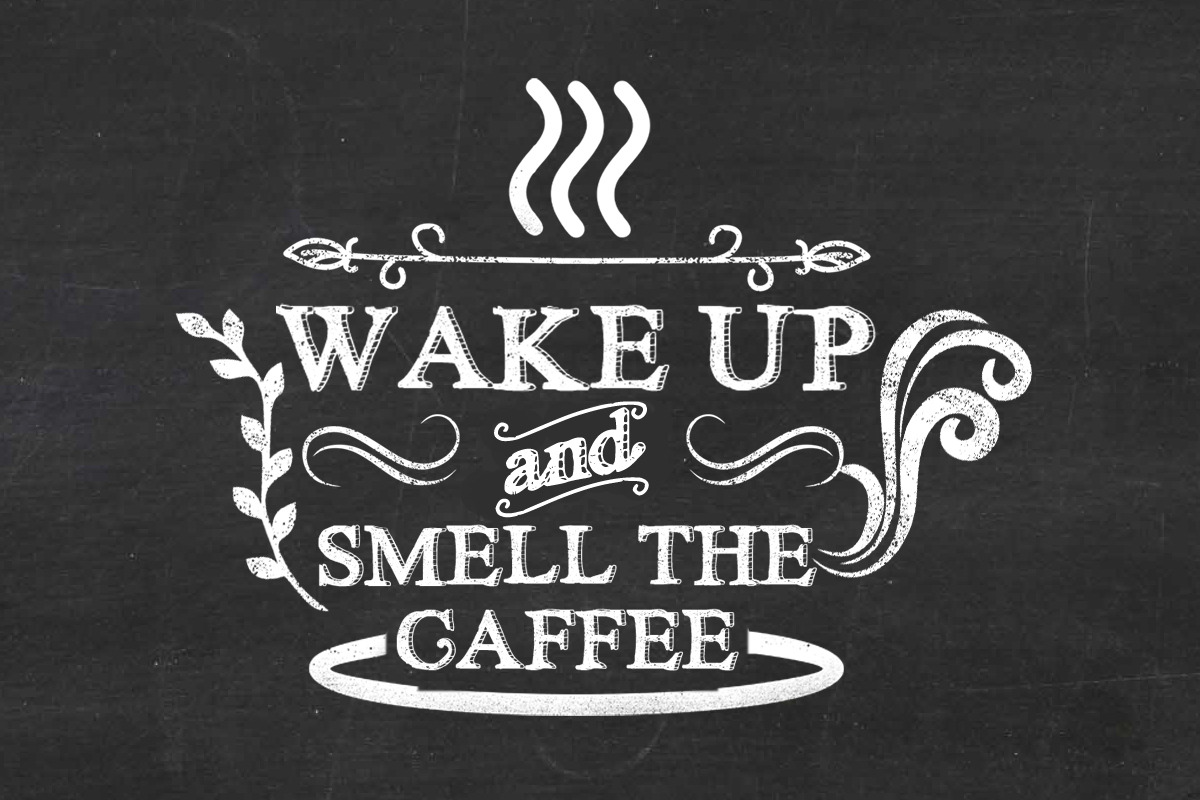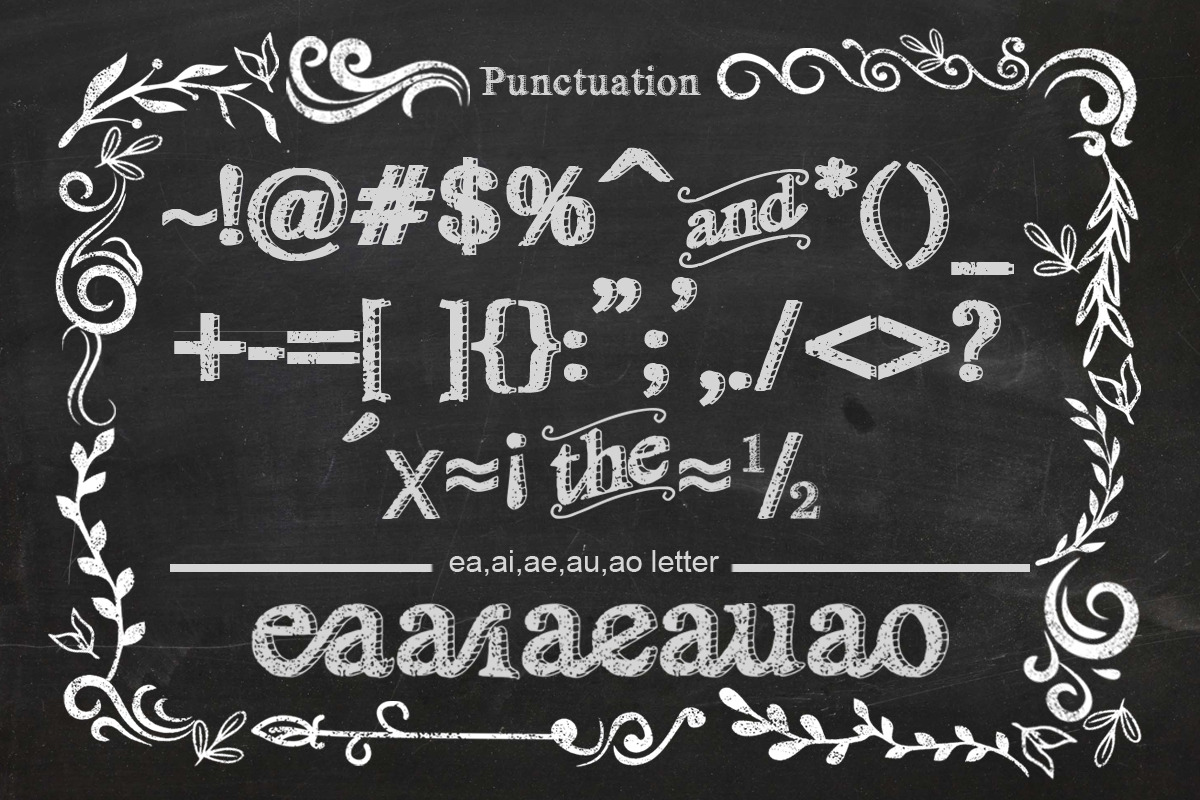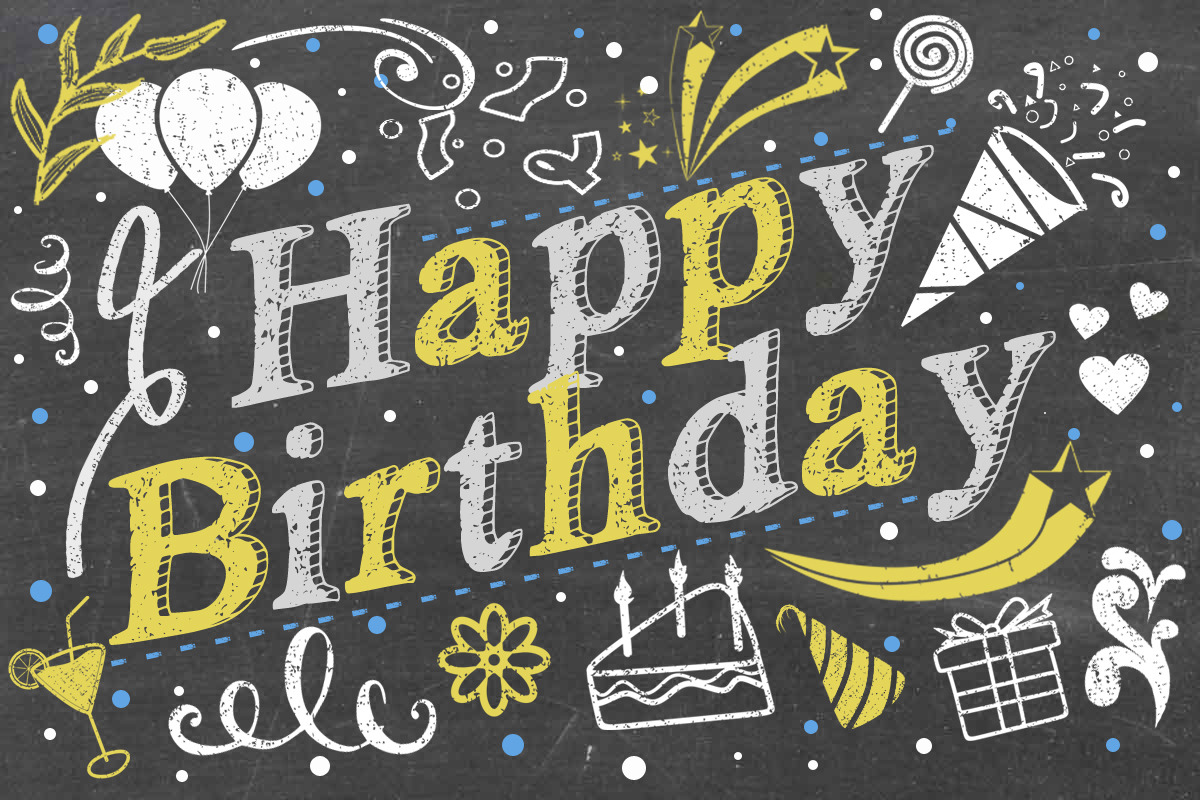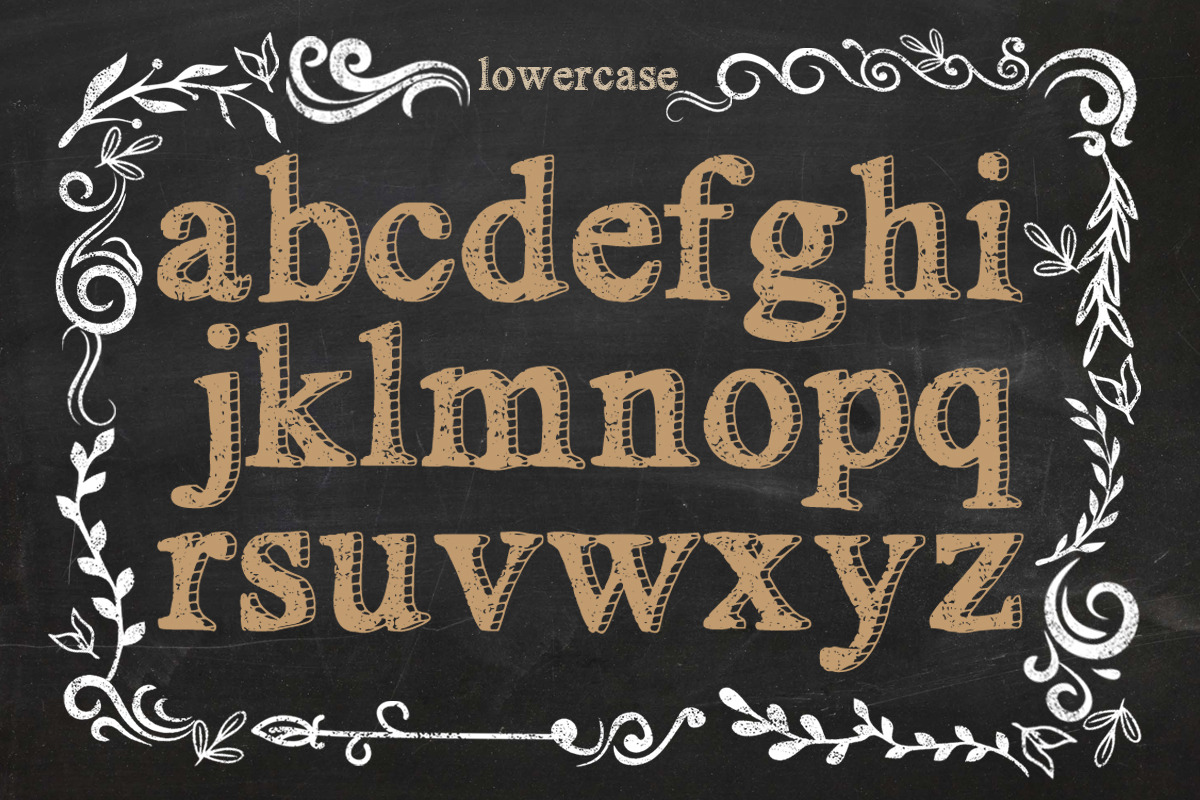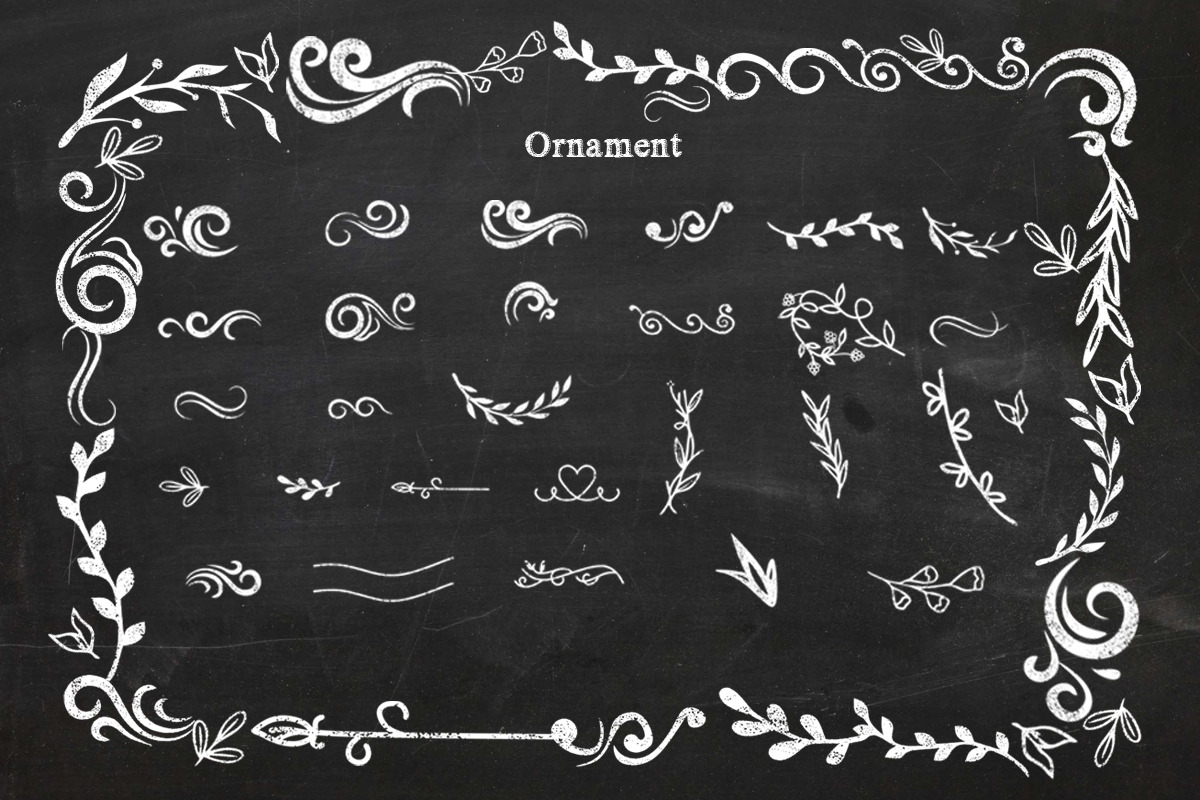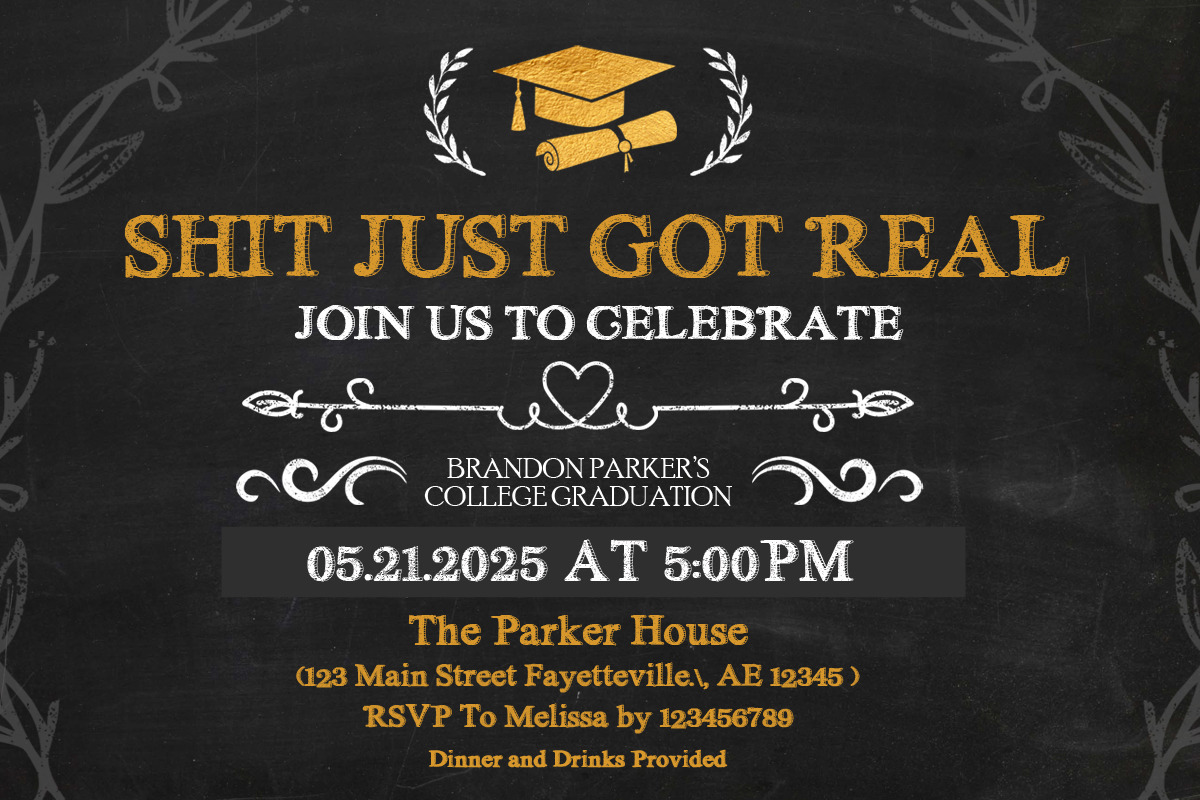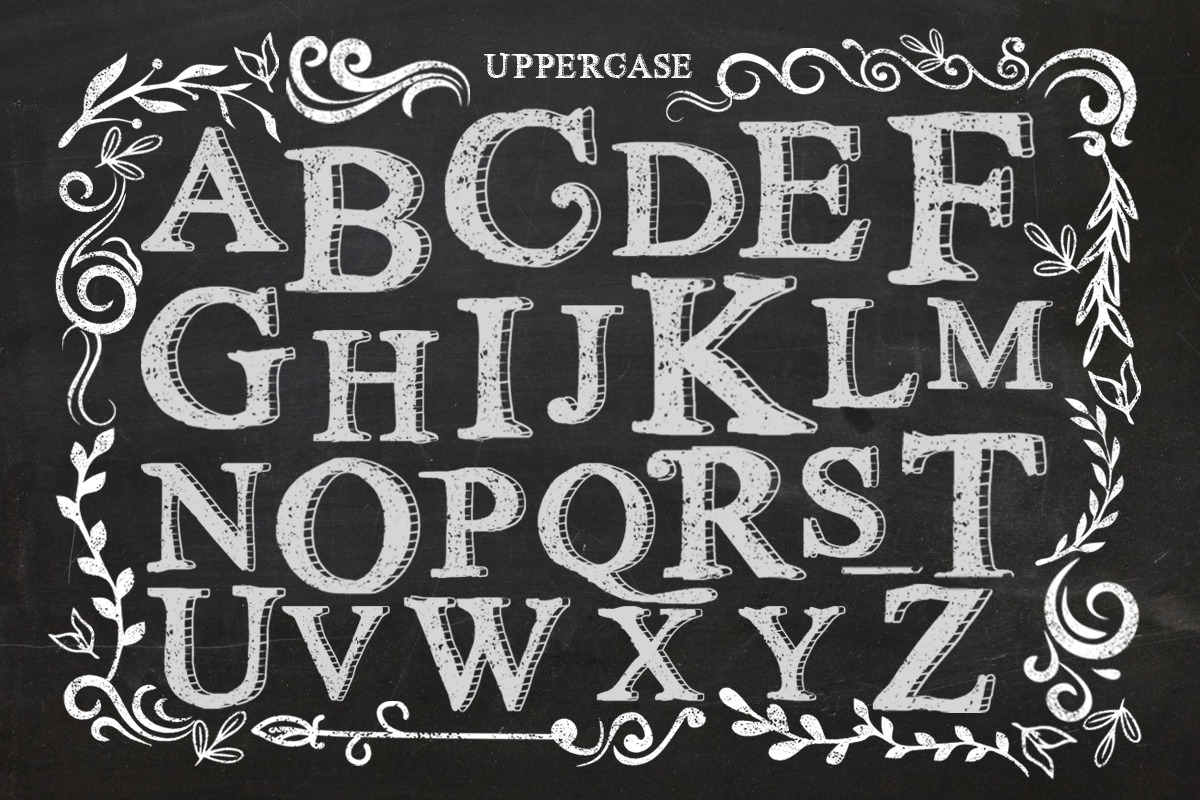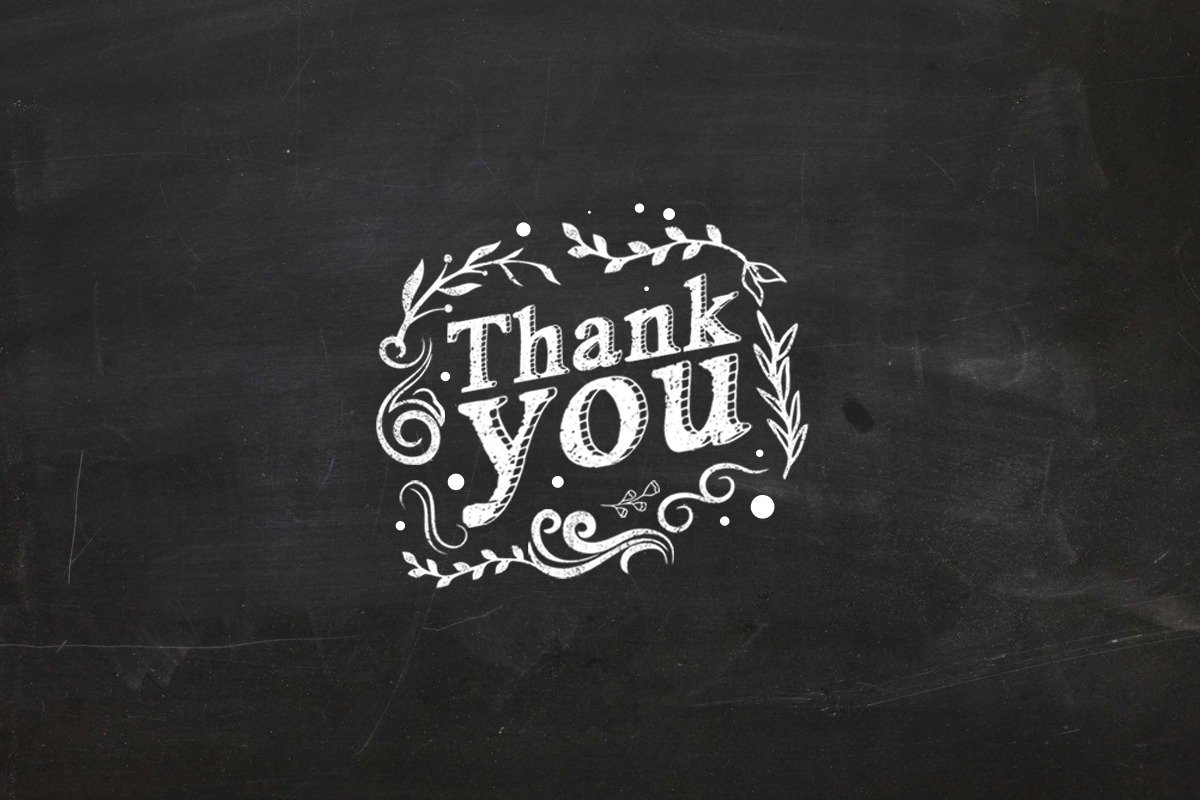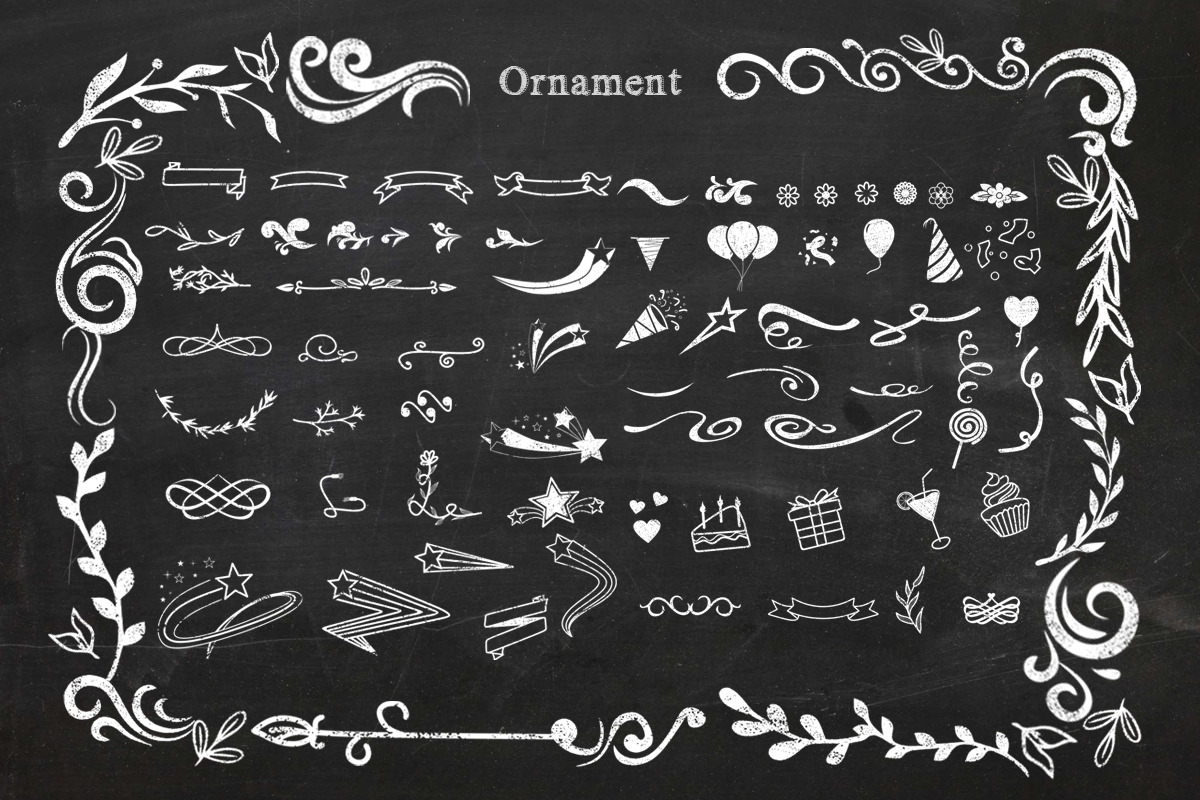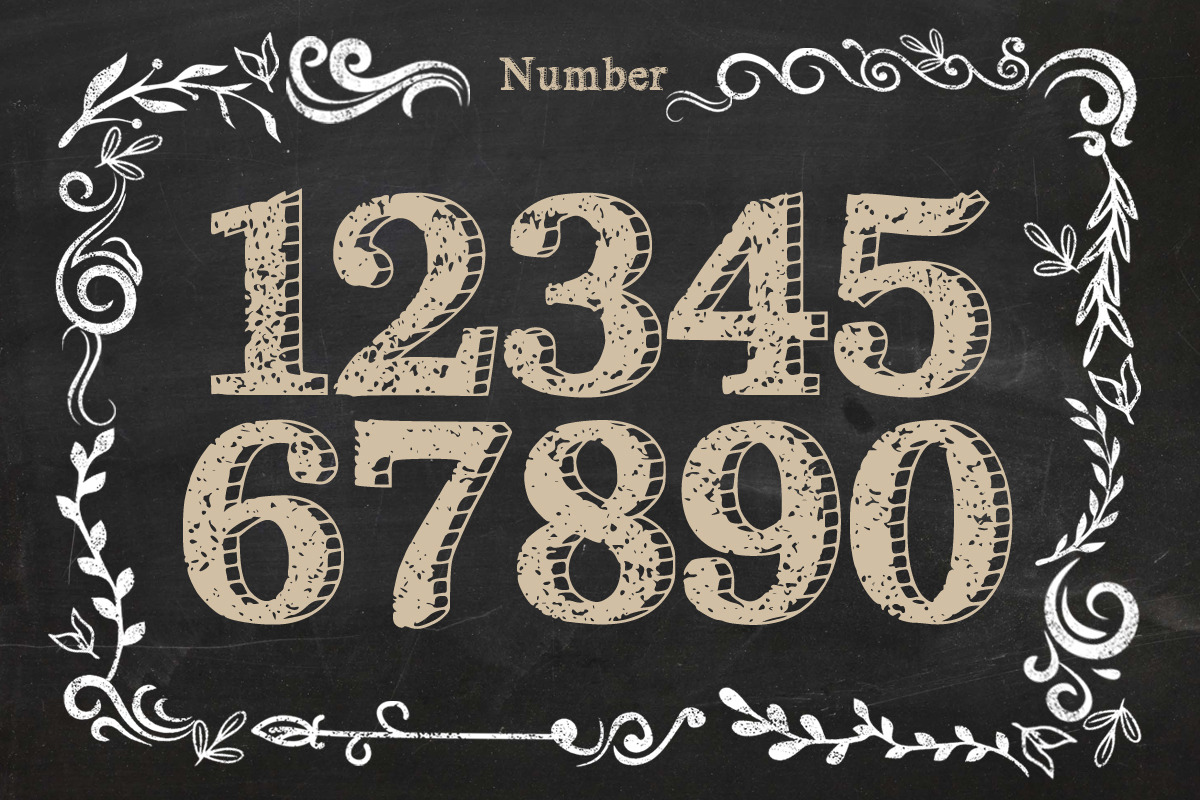
Queen Chalkfoam
Queen Chalkfoam is a fun, unique serif font that can be used for all chalkboard quotes or teaching material! Its authentic look and feel will add a personal and realistic feel to your designs.
Queen Chalkfoam Features:
- Chalkboard font - Accented Glyphs